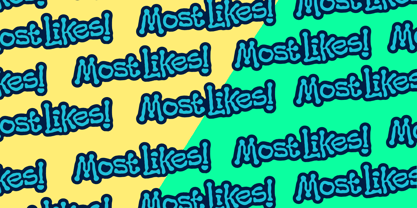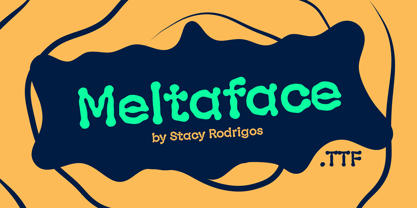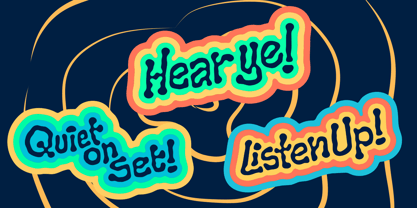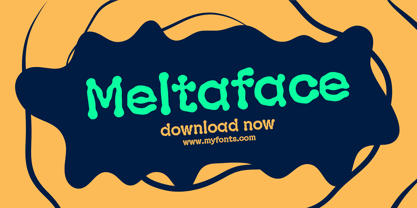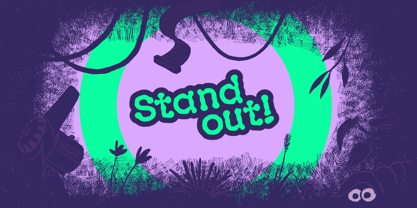
Meltaface
by Stacy Rodrigos
Meltaface is a custom display typeface born from the surreal, high-energy world of independent game design. This font captures the "beautifully stupid" essence of 90s MTV idents and the bold, experimental spirit of 60s and 70s poster art. Drawing inspiration from legendary designers like Milton Glaser and the vibrant aesthetics of Cuban cinema posters, Meltaface rejects rigid geometry in favor of organic, dynamic linework. It features a "loose and playful" construction that feels both nostalgic and modernly digital. Why choose Meltaface? Unique Heritage: Created specifically to unify disparate media—from vintage film clips to modern UI. Hand-Finished Feel: Offers a tactile, DIY personality that adds immediate character to any project. Custom Symbology: Includes a suite of hidden, quirky symbols designed to surprise and delight. High Impact: Perfect for titles, branding, and any context where you need a voice that is loud, expressive, and undeniably fun. Bring a touch of organized chaos to your next design with Meltaface—the font that isn't afraid to get a little weird.